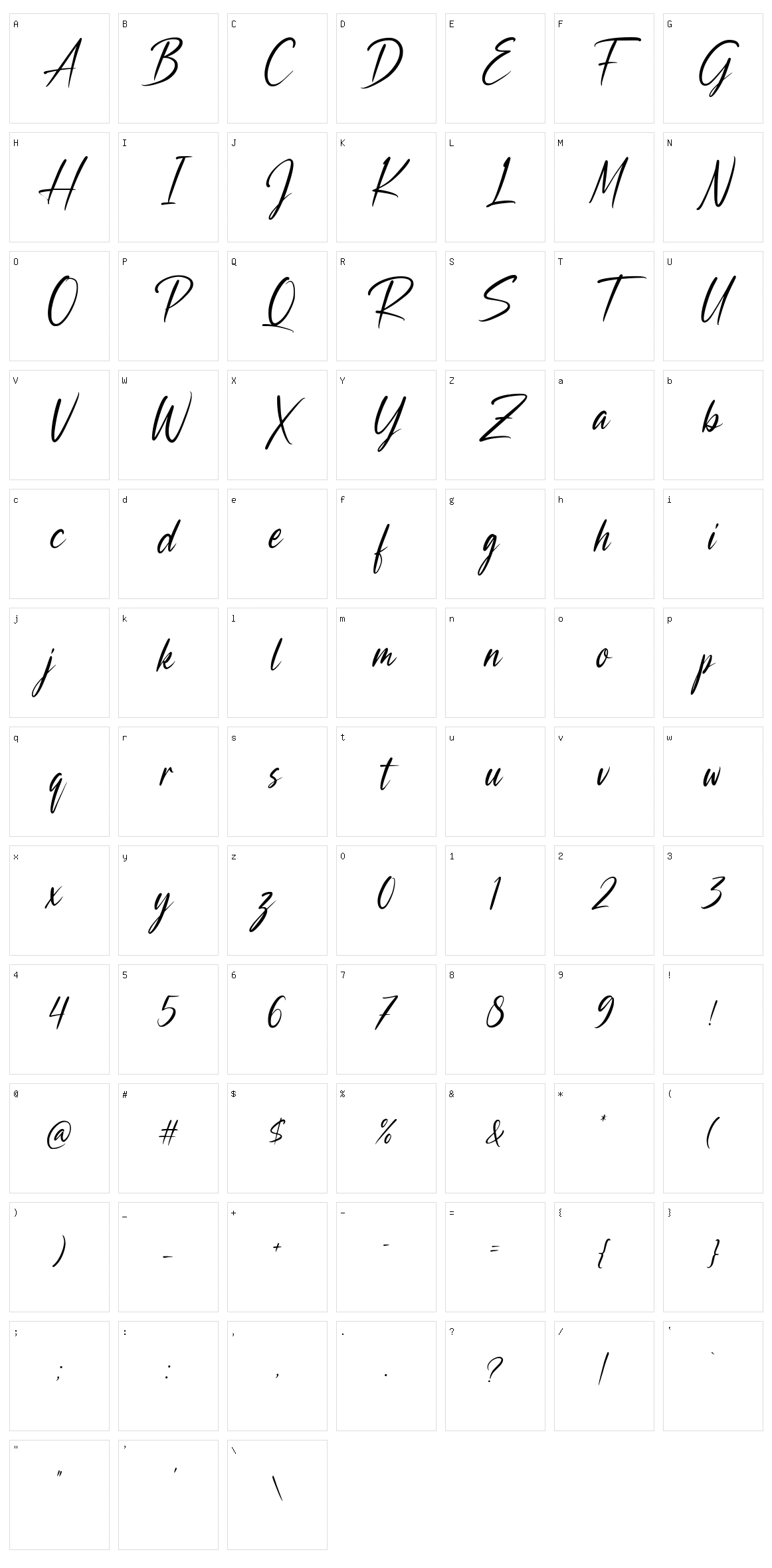
The free font La Compagnie des Hirondelles is carefully designed by Octotype | Thomas Boucherie, showcasing a thoughtful balance of creativity and usability and falls under the Script font style. When you download the ZIP file, it contains only 27.78 KB of font files, making it lightweight and quick to download. Please review the license details below to understand permitted usage and distribution rights. If license information is not available, we recommend using this font for personal projects only or contacting the author directly for commercial usage permissions.